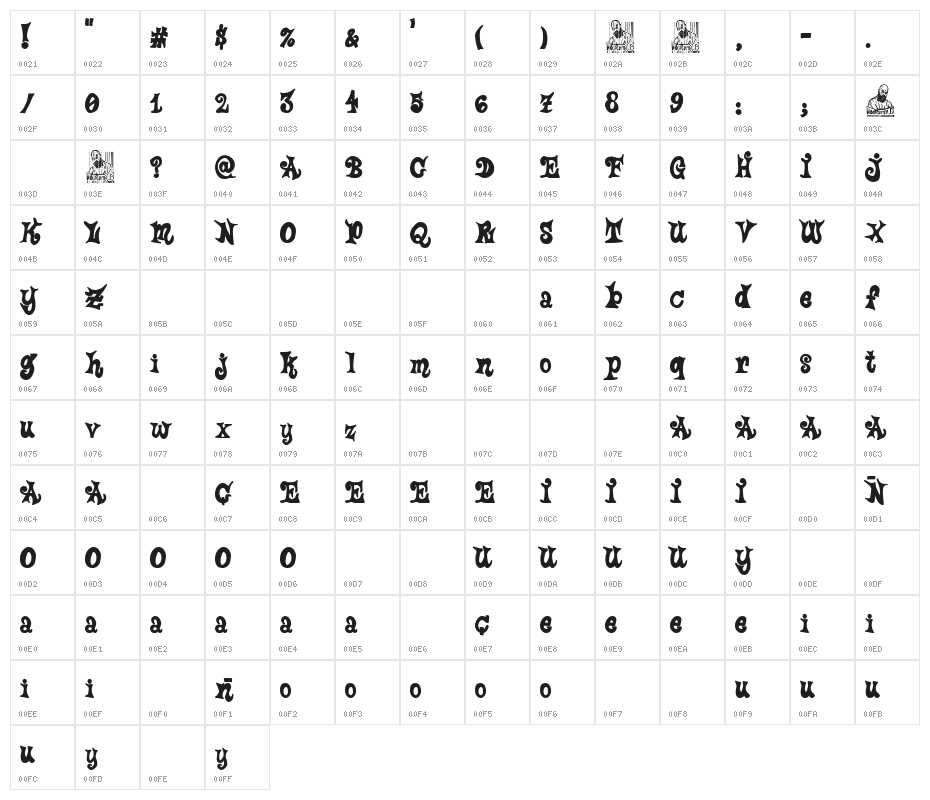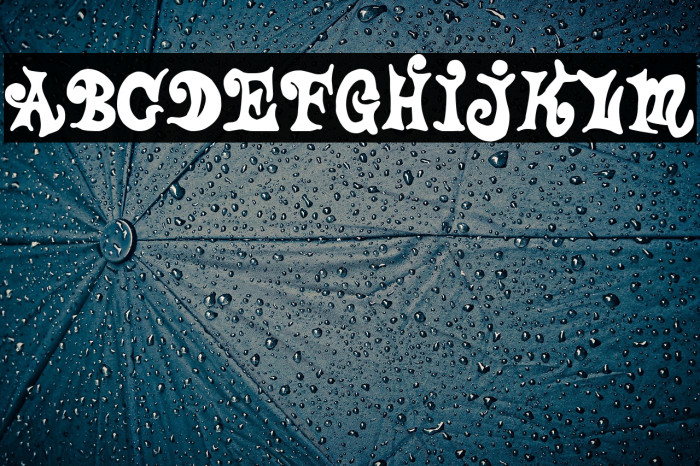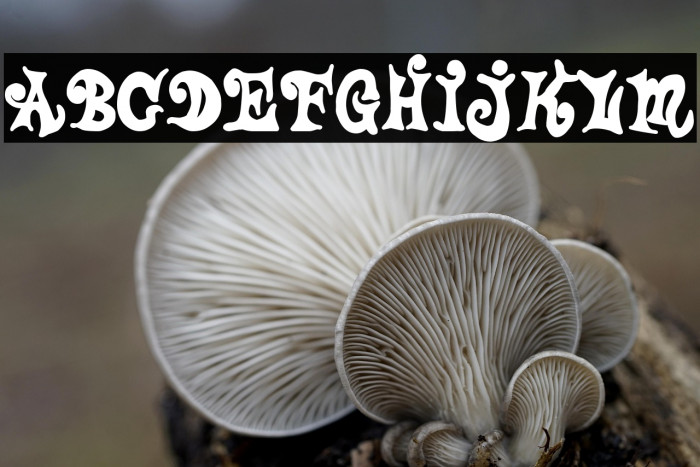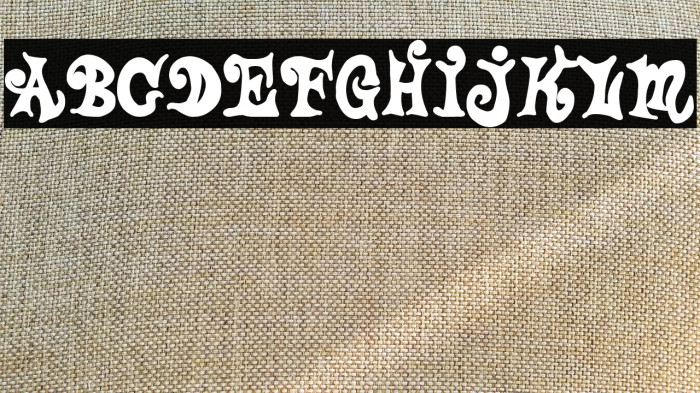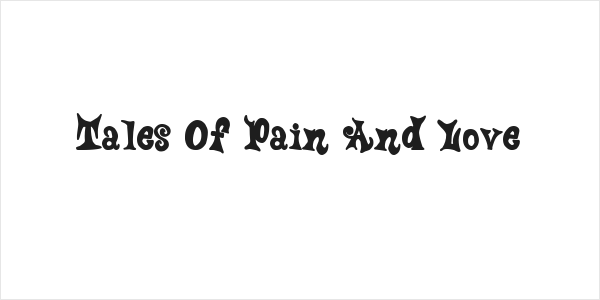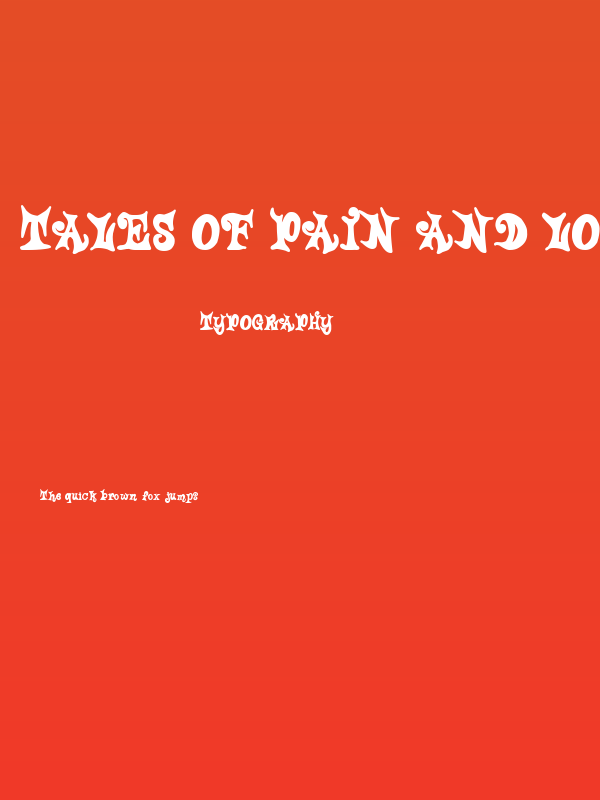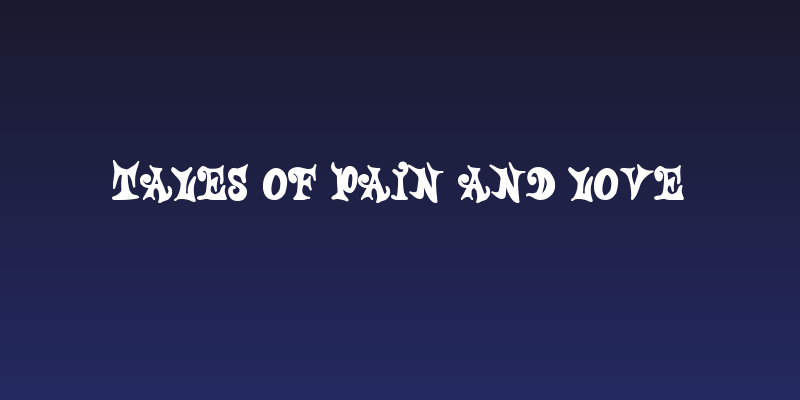
Tales Of Pain And Love Font
Tales Of Pain And Love Description
This font features a bold and dramatic style with exaggerated serifs and a playful, almost whimsical appearance. The characters are heavily stylized, with thick strokes and unique shapes that give each letter a distinct personality. The uppercase letters are particularly striking, with sharp angles and curves that create a sense of movement and energy. The lowercase letters maintain the same boldness, with a slightly more rounded and approachable feel. Numbers and special characters are equally expressive, fitting seamlessly into the overall design. This font is perfect for projects that require a strong visual impact and a touch of creativity.
| Proposed Projects | Ideal for posters, album covers, branding, and any creative project needing a strong visual impact. |